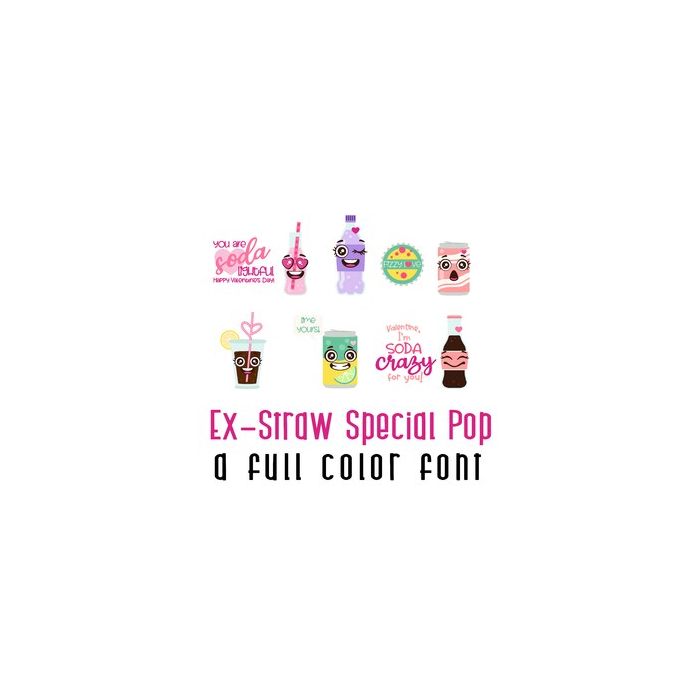
This adorable full-color doodlebat font features 26 kawaii style soda pop Valentines with fun straws. Perfect for cards, crafts, gifts, decor, scrapbook pages, planner stickers, and more!